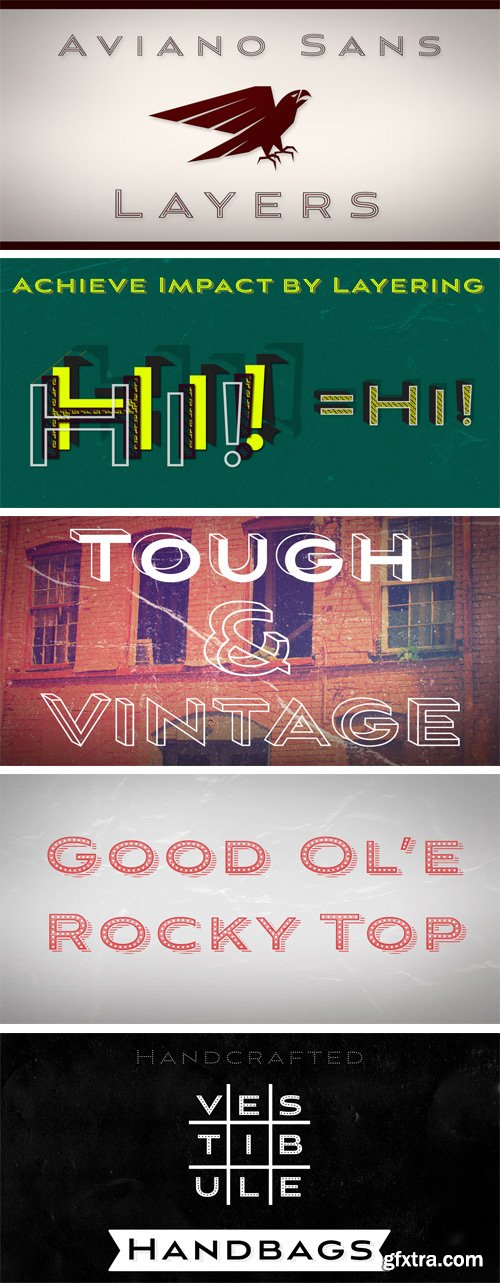
With this charismatic new type system, the possibilities are as large as your vision behind them. Achieve the impact you're looking for by layering the different fonts and colorations for a custom, hand-drawn look that likes to be noticed. Play around with the potential. Create effects such as realistic 3D looks by adding centerlines, dotted centerlines, and shadow variations. Inspired by the affable look of vintage handmade signage, the Aviano Sans Layers spacing accommodates these shadows and other features well with its generous width and helps you hit your message home. Try mixing it with the other members of the Aviano Hyperfamily, too. There are lots of funky options for you to explore. See what you can create with Aviano Sans Layers!
Legenda Brush is a fun market pen font with a quirky style and feel to it! It’s rough approach makes it the perfect companion for something you want to be edgy and stand out from the crowd.
In April 2009 The Entente was commissioned to design an on-going identity for artist and printmaker, Jake Spicer. The project’s bespoke typeface, was re-cut multiple times over a period of 9 months (becoming a personal labour of love), before arriving at the current commercial cut. The name ‘Fortescue’ is derived from a dwelling in Sidmouth, Devon, England where Spicer began his career. The Pro set comes complete with extended characters for use in Eastern & Central European languages. Full OpenType features include contextual ligatures, discretional ligatures, superior & inferior numbers, fractions, oldstyle proportional figures, proportional and tabular lining figures and a full set of small caps. Please note that the pro set features are in addition to the standard weights.
Hand-lettered script created with a calligraphic nib. Has a rough and loose appearance which helps retain its personal feel. Extends and condenses while retaining proportions well.
Once upon a time, Mestre Patau, the «Black» magician, concerned about children´s typefaces historical ugliness, decided to settle the matter and using his vector powers, made letters embellished to be used in that stories so that they were according with the great genius all children have inside. Well done face but happy, goodness is not incompatible with joy. A solid construction, smooth, rounded, vibrant, generous curves and even more generous x-height and general proportions, give to the letter the vitality and freshness needed for use in projects where formality is not a requirement. Naughty but welldone, although not heeding the overshoots or the formal alignments, no symmetry in the horns is, despite this, or because of it, a fresh, cheerful but perfectly legible type. A full menu of freshness in your tales and stories!
STEALING HEART Script is a beautiful Modern line Script Font Typeface , This line script will look gorgeous on all your designs, wedding invites, branding materials, logo's, t-shirt, poster, business cards, quotes and all project design other.
LHF Ridgecrest is a serious style for serious designs. Narrow letters make it ideal for book and movie titles. Font includes lowercase and several alternates for maximum flexibility.
A Modern typeface well suited for applications where an extended letterstyle is needed. Regular & Convex versions.
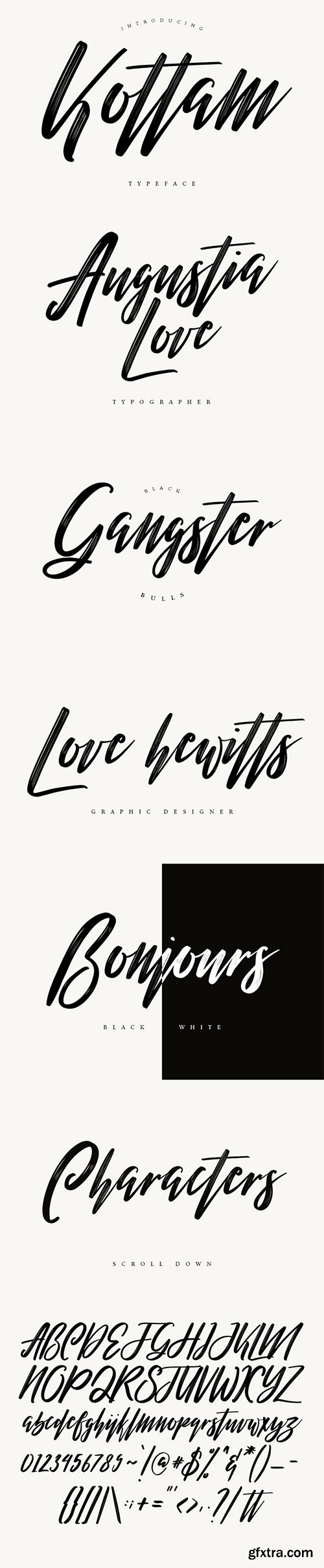
Give your designs an authentic brush handcrafted feel. “Kottam Typeface” is perfectly suited to stationery, logos and much more.
Peace Maker is Dry Brush Script Font with handletter style. Suitable for design, element design, wedding, event, t-shirt, logo, badges, sticker, and awesome work, etc...
Ashella Script, a new modern script with a handmade calligraphy style. Great for branding materials, greeting cards, business cards, posters, quotes, etc. Open Type features can be accessed by using Open Type savvy programs such as Adobe Illustrator, Adobe InDesign, Adobe Photoshop Corel Draw X version, And Microsoft Word.
Meet new Handwritten font Custom Craft! Custom Craft - a new handwritten font. Very suitable for greeting cards, branding materials, business cards, quotes, posters,based creations, websites, merchandise, packaging, invites, greetings and more!
Originally drawn in a Regular weight for the comprehensive re-design of photography magazine HOTSHOE, we are pleased to release BASIS GROTESQUE commercially, some three years after its initial conception. Over the course of the past 36 months, we’ve exhaustively refined and extended the family into a 16-style brood, and in-so-doing have had the opportunity to test all iterations and sub-iterations of BASIS GROTESQUE across countless platforms, printed and otherwise. Initial points of inspiration — among them Akzidenz and various early Grotesques from Monotype — were ultimately eschewed-but-honored to create something slightly more behaved and shapely. An intentional skeletal similarity among the weights prompts an otherwise truly diverse clan of types, ranging from Light to Black with corresponding Italics, and complemented by Monospaced cuts in both Regular and Bold weights (also with partner Italics, of course). Extensive OpenType features abound, and support for both Cyrillic and Greek are available in all Pro styles.
Sofa Sans’ handcrafted character is friendly and eye-catching. Stylish features and alternates add personality and let you create unique logos and stunning headlines. Two optical sizes and extra shadow-, 3D-, inline- and hatched-styles make Sofa Sans a flexible solution for any display need. The family boasts 4 weights from a monolinear Thin to Black, each containing more than 1000 glyphs, plenty of OpenType features and full ISO latin 1 & 2 language support. About that, extra shadow-, 3D-, inline- and hatched-styles round out the package. High contrast is one of Sofa Sans’ key features. To maintain a wide range of use, choose from two optical sizes: Standard and Display with a maximum of contrast especially in the heavier weights. Sofa Sans includes a variety of OpenType alternates which add uniqueness to your work. OpenType features include Swashes- and Titling-Alternates, Beginnings and Endings, Stylistic-Sets for even more alternative glyphs as well as a “random-double-letter-feature” with “Discretionary Ligatures” activated. OpenType Swashes- and Titling-Alternates are smart features which automatically adjust all swashy letters to the available white space. Switch one on and let Sofa Sans do the rest. Please download the SofaSans-OpenType Feature Guide from the gallery for further details. Sofa Sans is a hand-drawn/handmade all-caps display-family for packaging, posters, book-covers, food- and logo-design and will best stand out in huge grades.